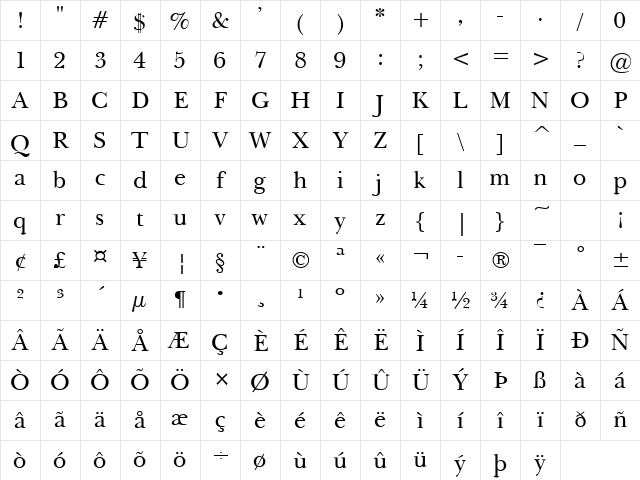
Baskerton Regular
Baskerton Family
Design Context for Baskerton
Baskerton is a composed and adaptable typeface that performs quietly and consistently across a wide range of design contexts.